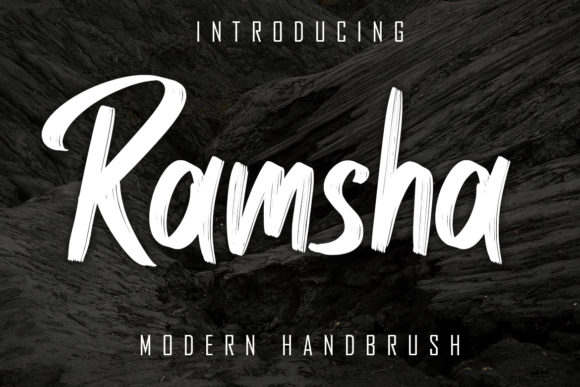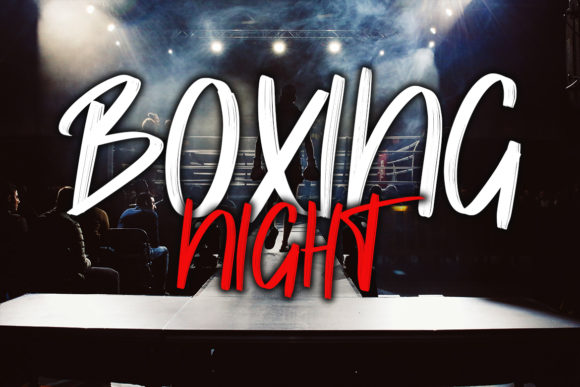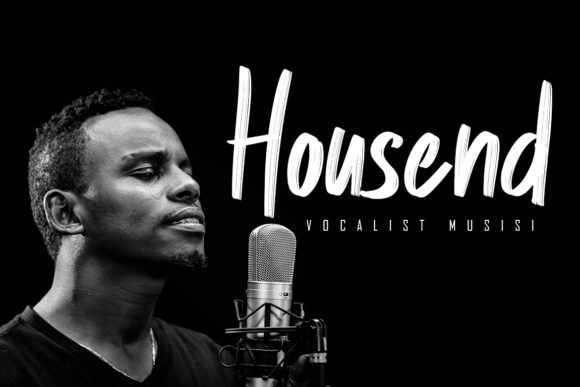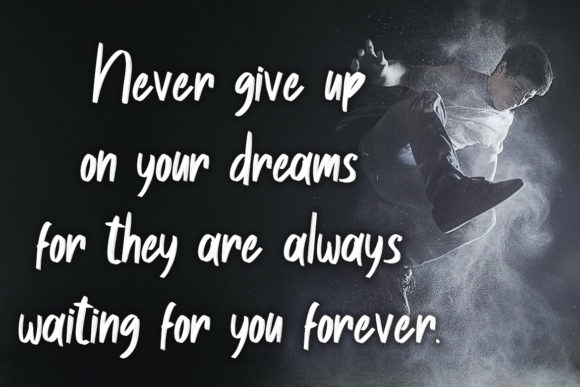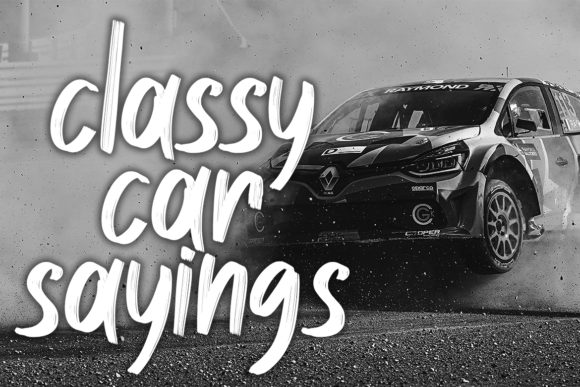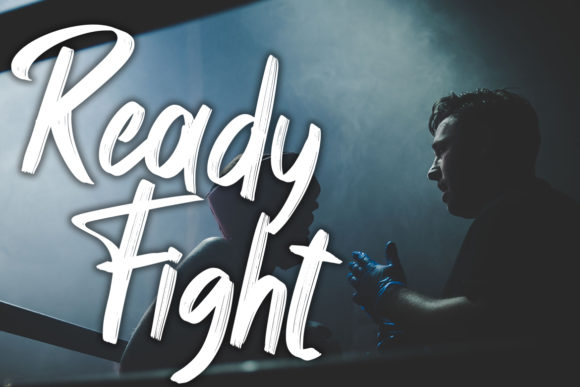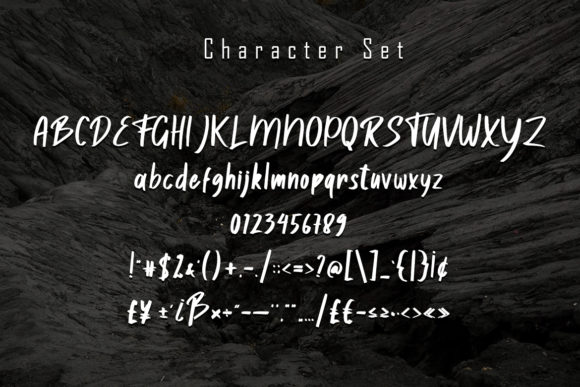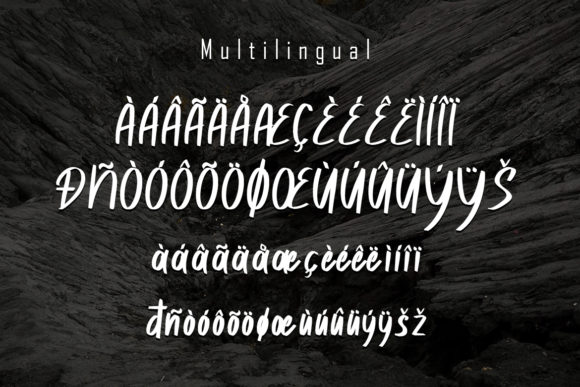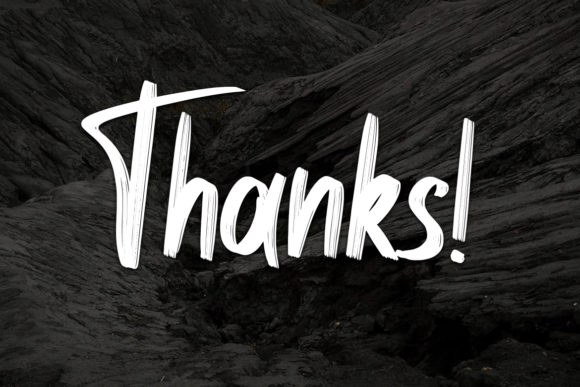
Ramsha Font
About Ramsha Font
Ramsha is an incredibly beautiful handwritten font. Masterfully designed to become a true favorite, this font has the potential to bring each of your creative ideas to the highest level!